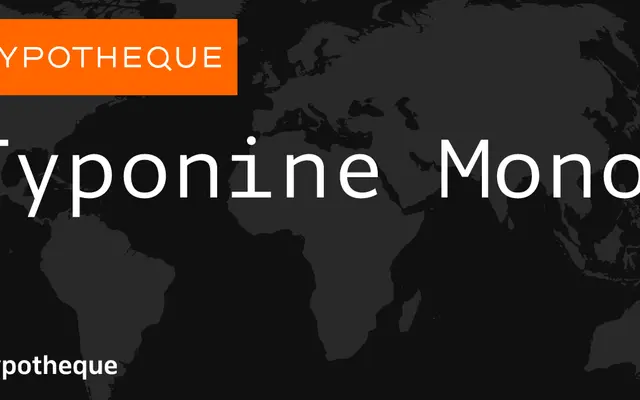
Typonine Mono specimen from Typotheque
A clean monospaced family from Typotheque spanning four weights with matching italics, covering extended Latin.
Typonine Mono runs from Light to Bold across four weights, each with a corresponding italic, giving it reasonable range for coding environments or tabular editorial work. The family covers Latin script and carries city names as style identifiers across its eight fonts. Typotheque's release keeps things functional and restrained without distinguishing features that set it apart from the wider monospaced category.
A monospaced typeface with Latin coverage, offered in multiple weights with italics, straightforwardly classified as mono.